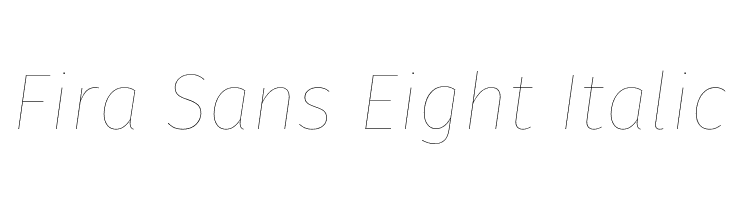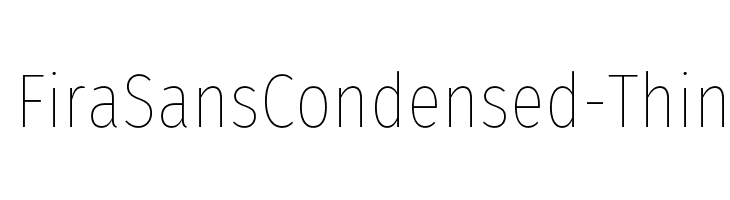
A modern, light, italic sans-serif font with balanced spacing and elegant slant.
A modern, light sans-serif font with excellent readability and balanced proportions.